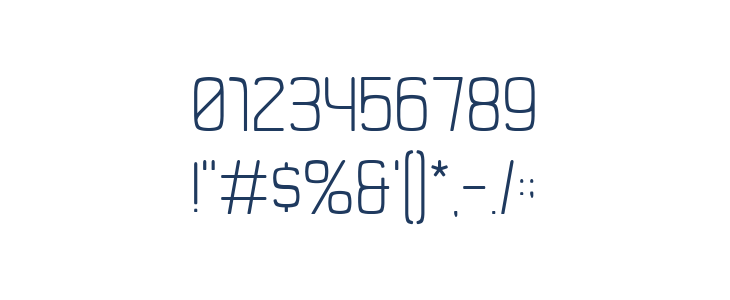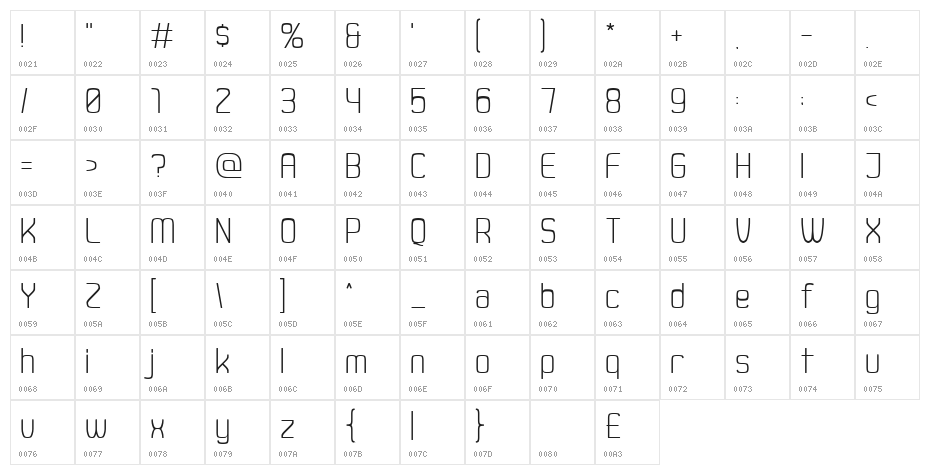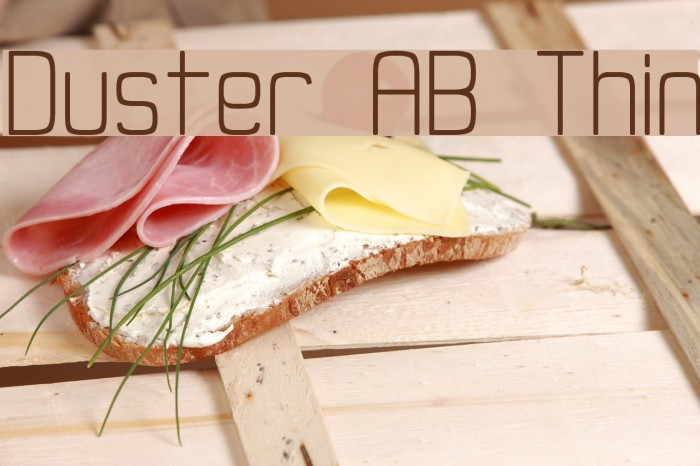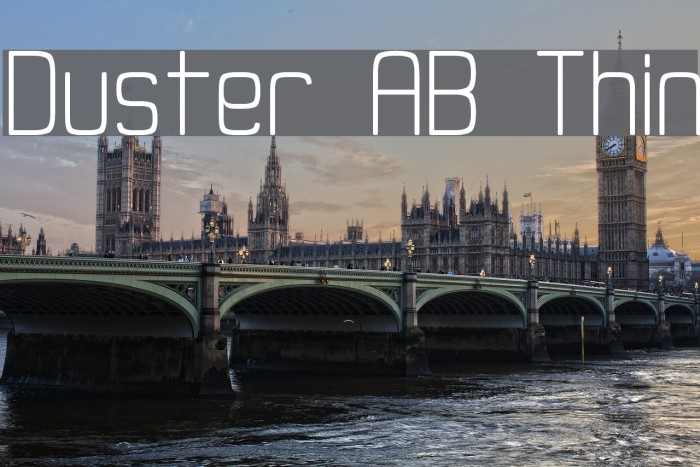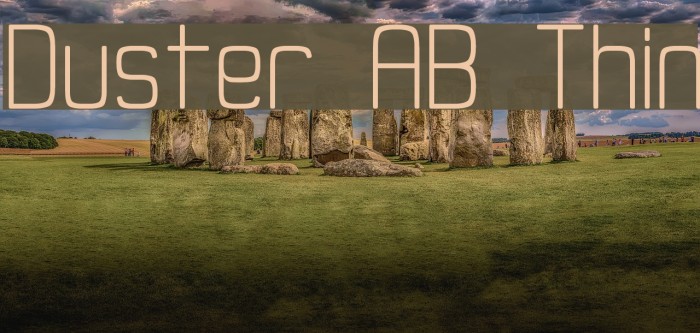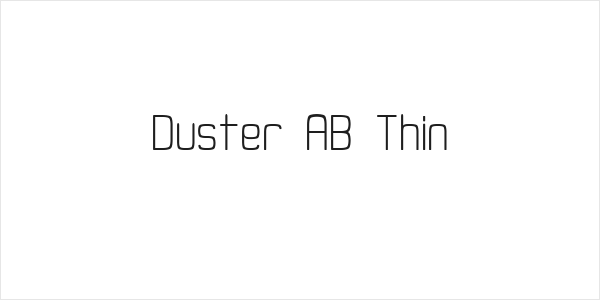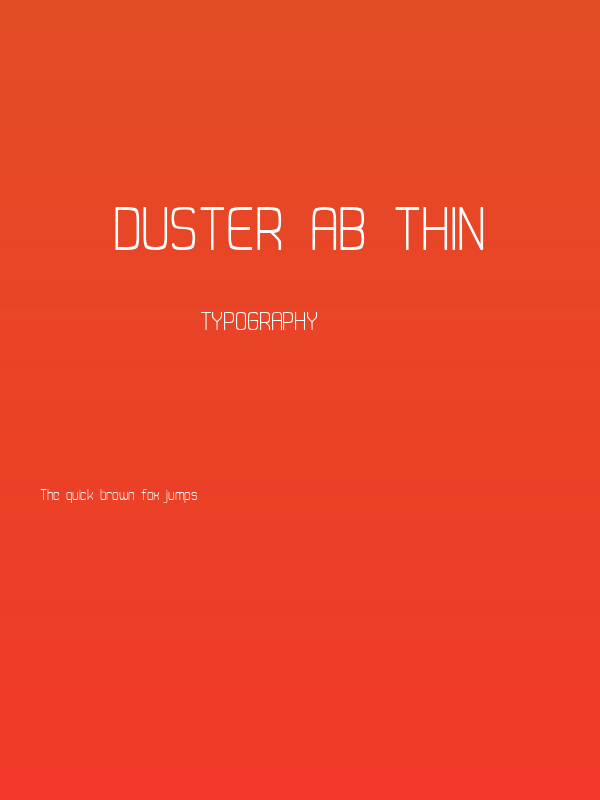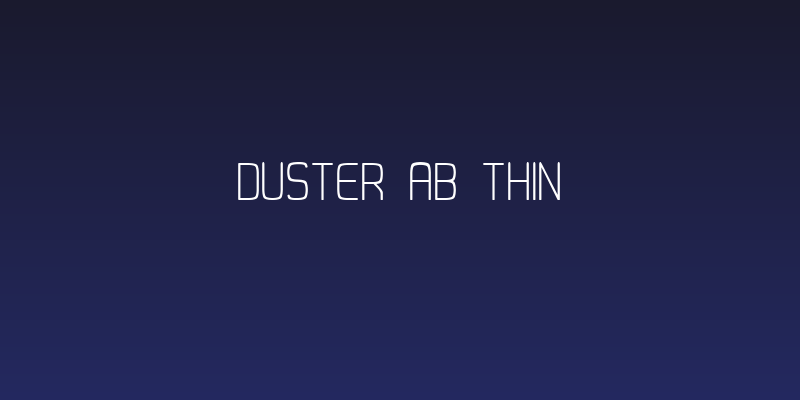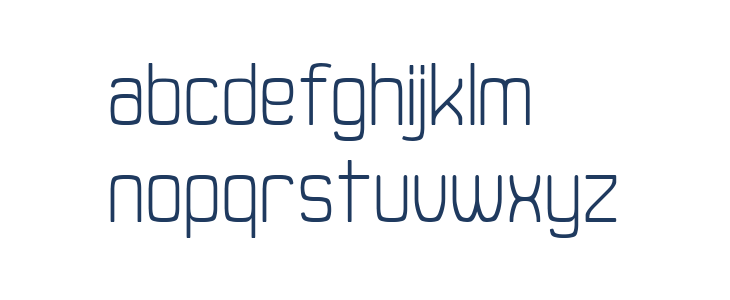
Duster AB Thin Font
Duster AB Thin Description
This font features a clean, geometric design with rounded edges and a thin stroke width, creating a modern and minimalistic appearance. The uniformity in the letterforms provides a sense of balance and harmony, making it visually appealing for contemporary design projects. The characters are evenly spaced, contributing to its legibility and readability. The font includes a full set of uppercase and lowercase letters, numerals, and a variety of special characters, making it versatile for different applications.
| Proposed Projects | Ideal for tech branding, minimalist posters, modern web design, and sleek product packaging. |